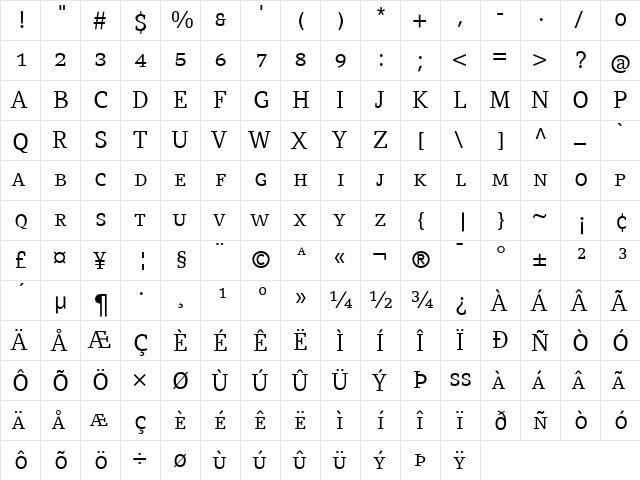
CompatilLetter LT Regular
CompatilLetter LT is a composed and adaptable typeface that performs quietly and consistently across a wide range of design contexts. Its slender proportions lend an understated elegance to any composition.